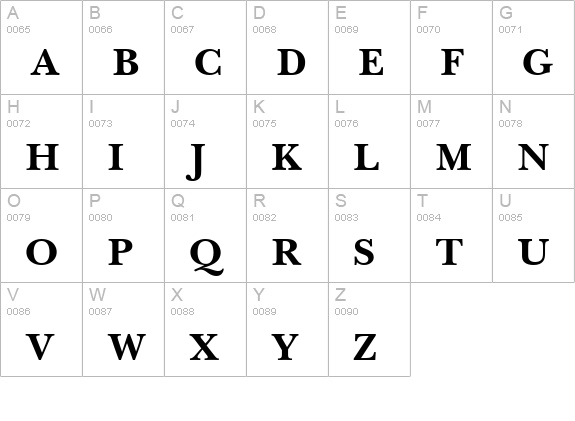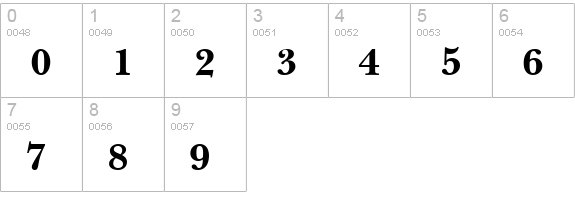
Baskerville Handcut BOLD Font Details
Baskerville Handcut BOLD is a strong, high-contrast variant in the Baskerville typeface family \xE2\x80\x94 well suited to headlines, attention-grabbing titles, and strong calls-to-action.
The Baskerville Handcut BOLD font is a striking and versatile typeface that exudes elegance and sophistication. Its bold weight commands attention and makes a bold statement in any design project. The hand-cut design adds a unique touch, giving the font a handcrafted and artisanal feel. This font is perfect for creating eye-catching headlines, posters, logos, and other design elements that require a strong and impactful typeface. Its classic yet modern style makes it suitable for a wide range of applications, from print to digital media. Best of all, Baskerville Handcut BOLD font is available for free download at FontsMarket.com. So, whether you're a designer working on a commercial project or a hobbyist looking to enhance your creations, this font is just a few clicks away. Don't miss out on the opportunity to add this stunning typeface to your font collection today!